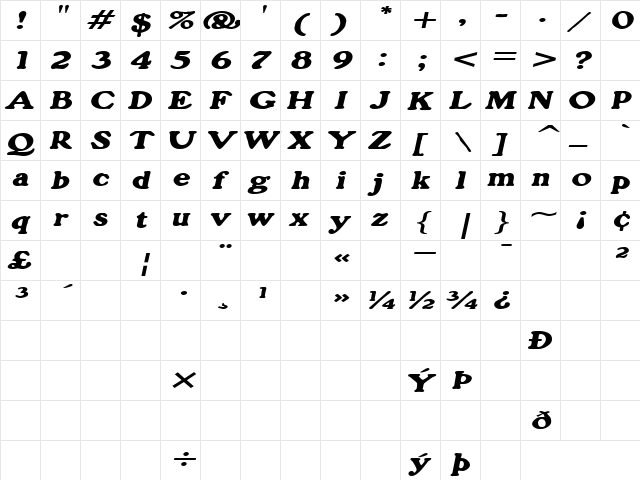
GrainExtended Oblique
Design Context for GrainExtended Typeface
GrainExtended takes a measured approach to typography — its balanced proportions and neutral character make it a reliable workhorse for both digital and print work. The dynamic lean of this cut emphasises speed and emphasis in any layout.
Pro Tip: Use GrainExtended for emphasis, pull quotes, and subheadings where its slanted energy can add rhythm to the layout.